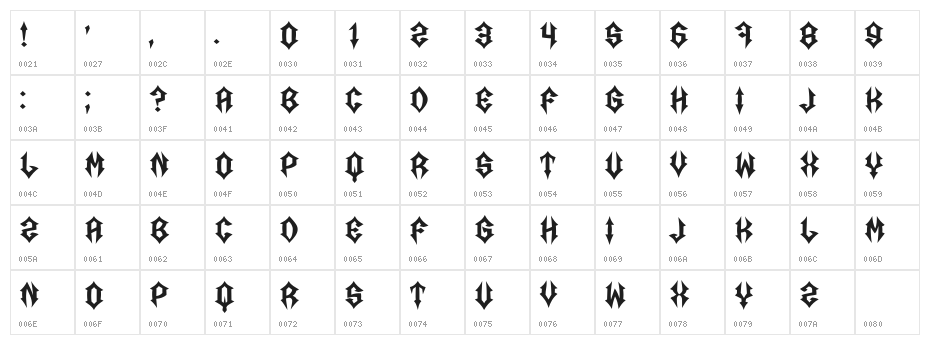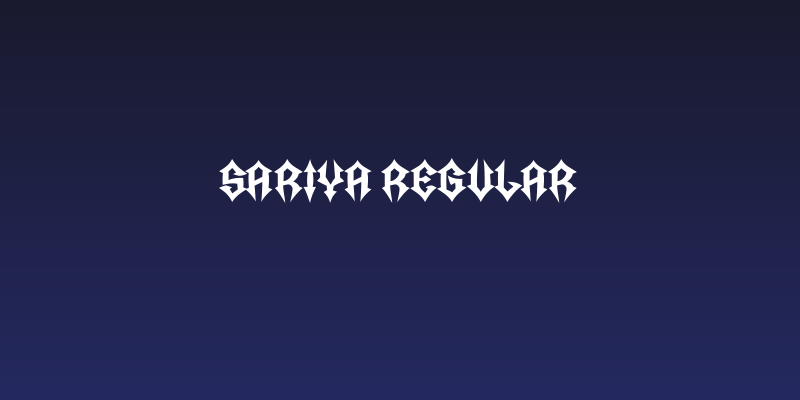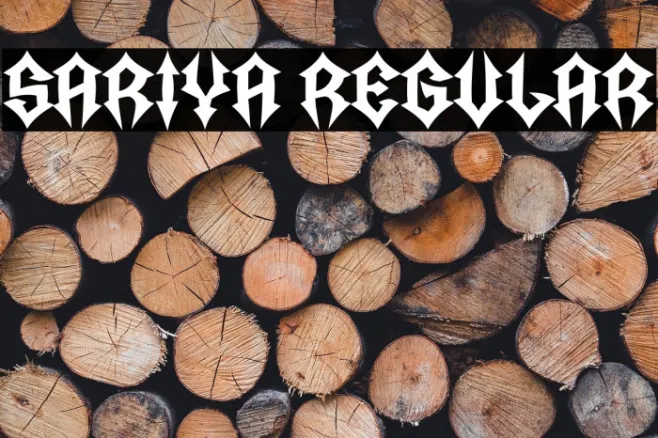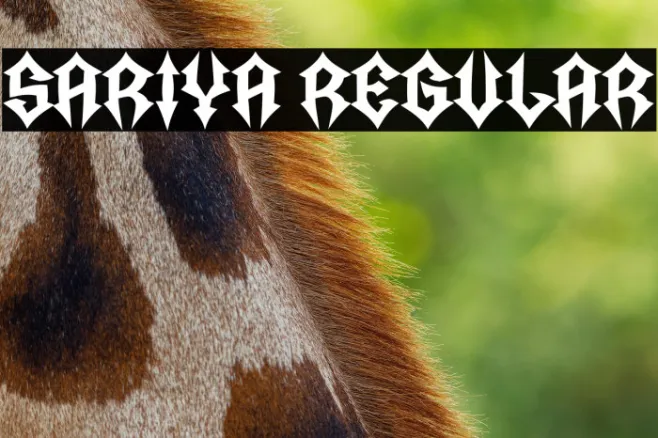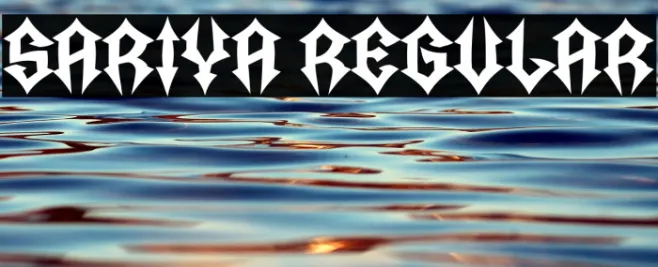
Sariya Regular Font
Sariya Regular Description
This font features a bold, angular design with sharp edges and a gothic influence. The characters are highly stylized, with pointed serifs and a dramatic presence that commands attention. The uppercase and lowercase letters maintain a consistent style, with a strong emphasis on vertical lines and sharp diagonals. The numerals and special characters follow the same aesthetic, making the font cohesive and visually striking. Its unique design makes it suitable for projects that require a bold and impactful statement.
| Overall Style | Gothic, Decorative |
| Proposed Projects | Ideal for album covers, posters, logos, and any design that requires a strong, gothic aesthetic. |